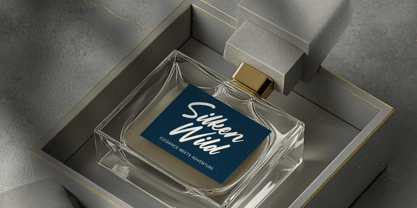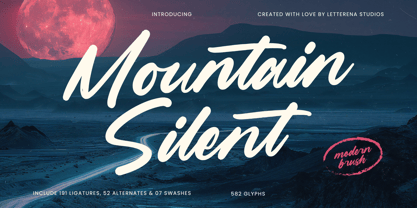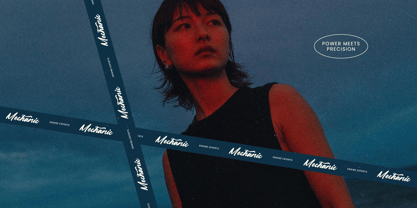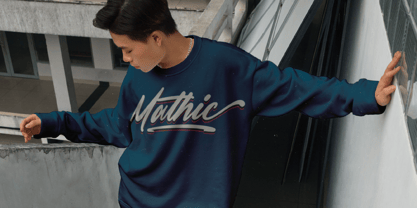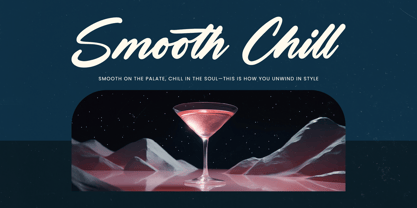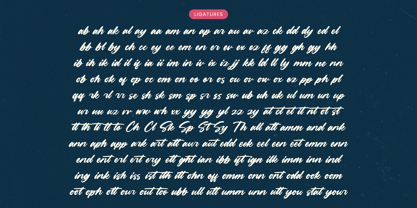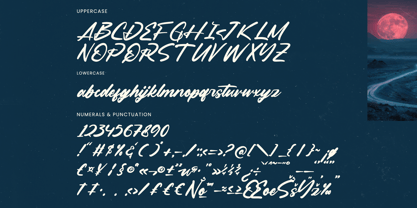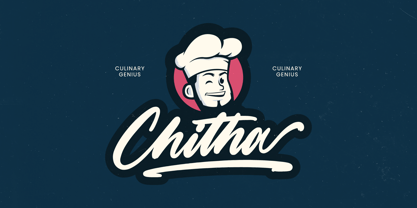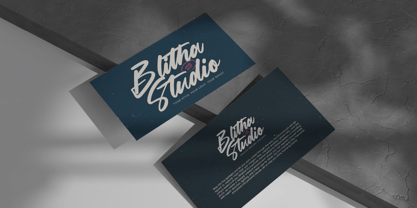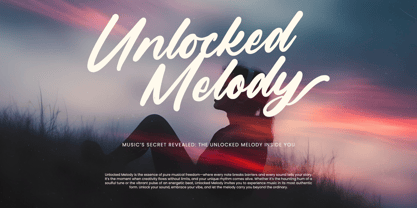
Mountain Silent
by Letterena Studios
The Mountain Silent Font Family was designed by Heru Utama Putra and published by Letterena Studios. Mountain Silent contains 2 styles and family package options. More about this family
Mountain Silent - Modern Brush Font , from Letterena, is a Luxury Script font, suitable for any projects such as: logos, branding projects, homeware designs, product packaging, mugs, quotes, posters, shopping bags, t-shirts, book covers, name card, invitation cards, greeting cards, label, photography, watermark, special events, and all your other luxury and beautiful projects that need a Luxury Script taste.
Foundry: Letterena Studios